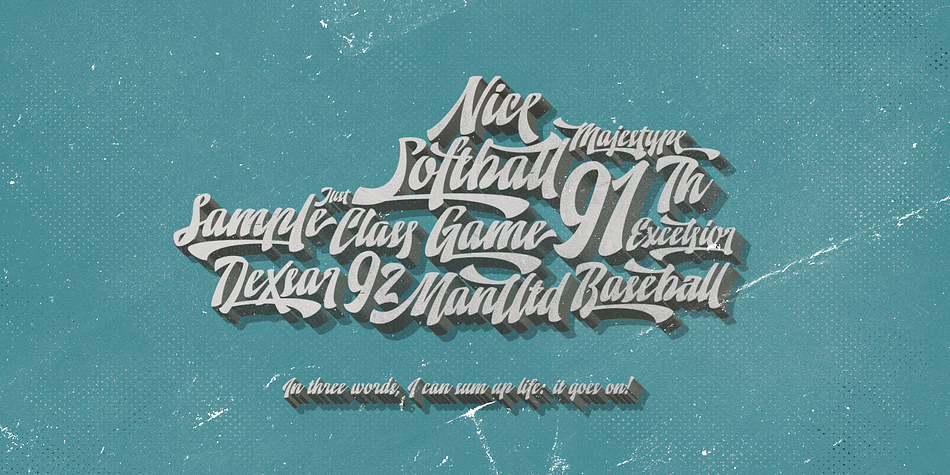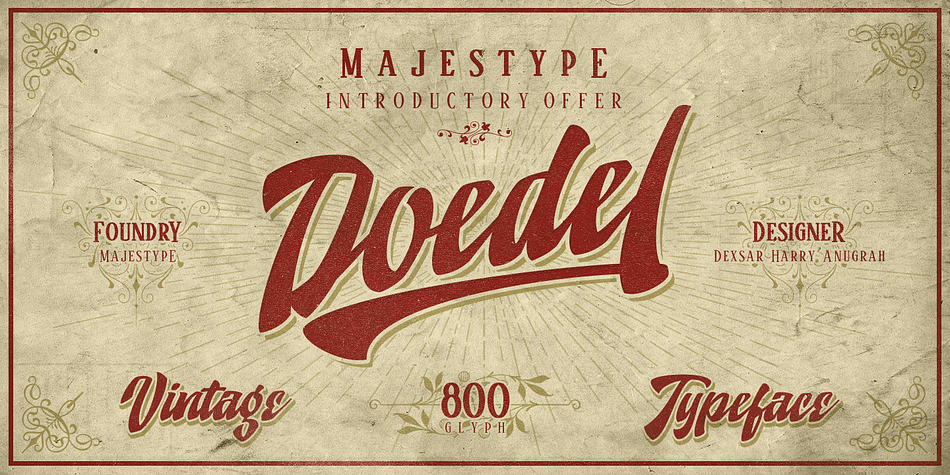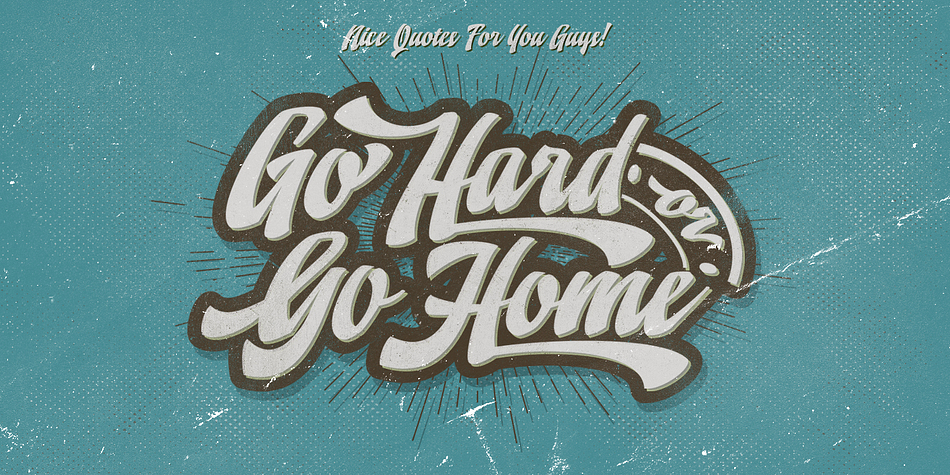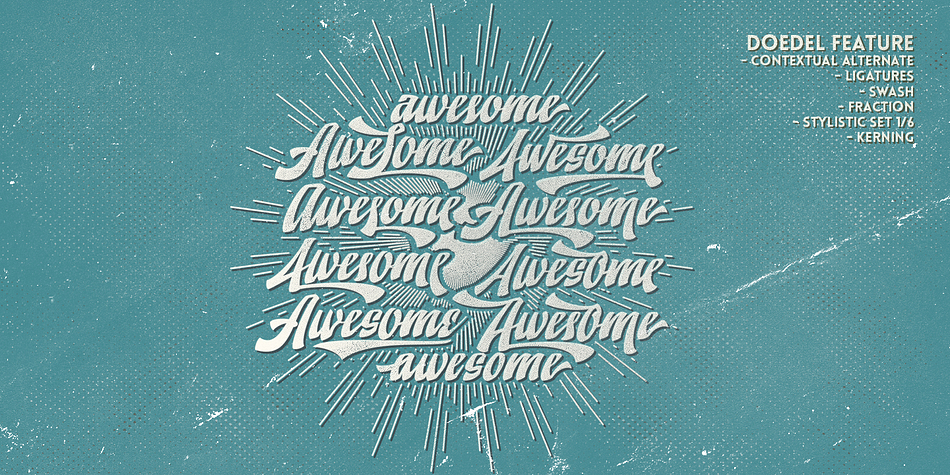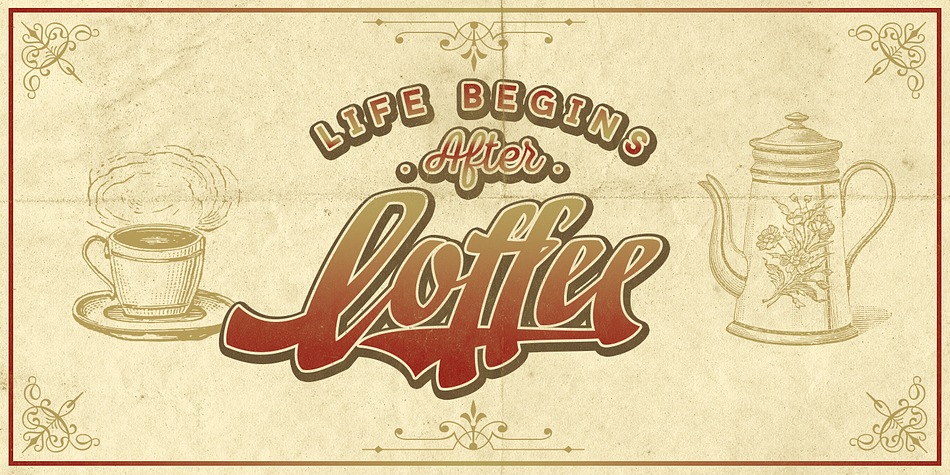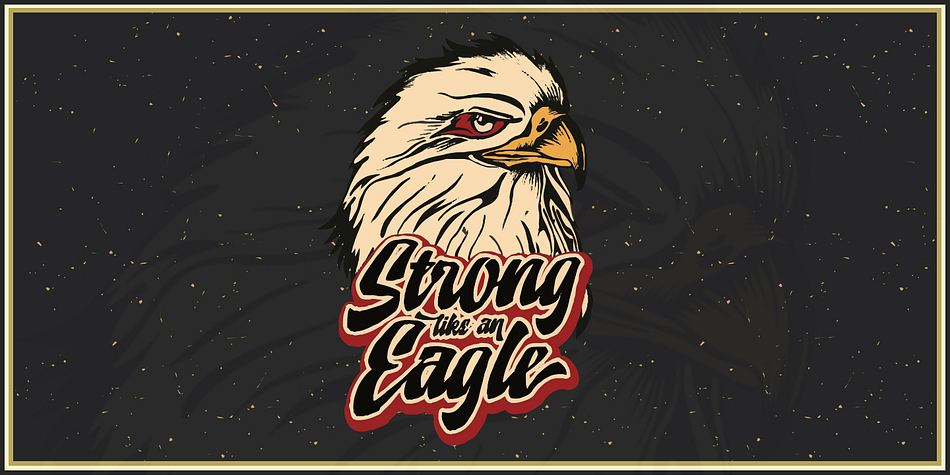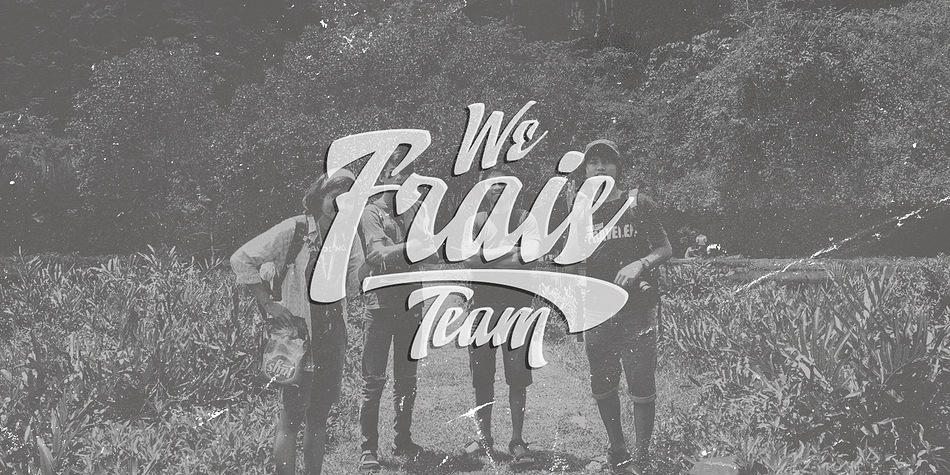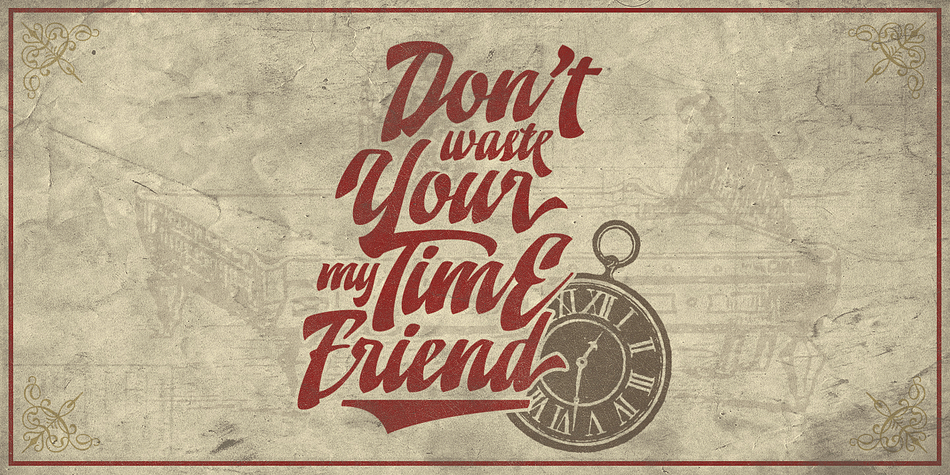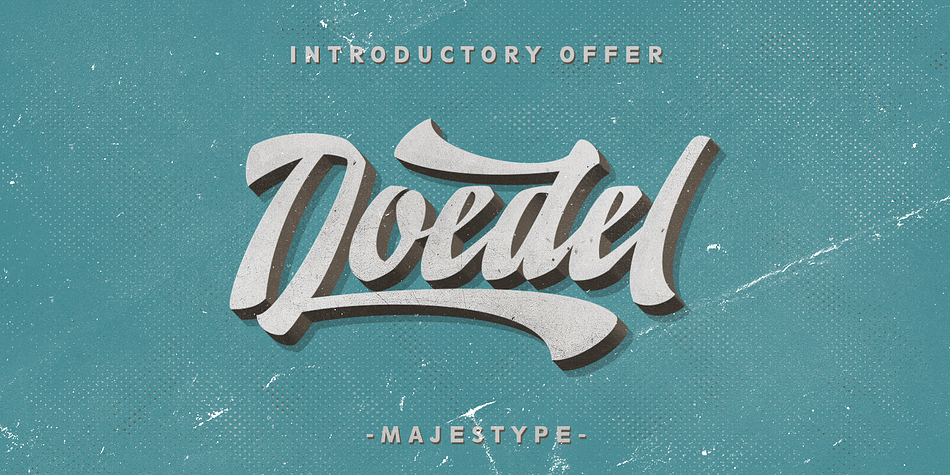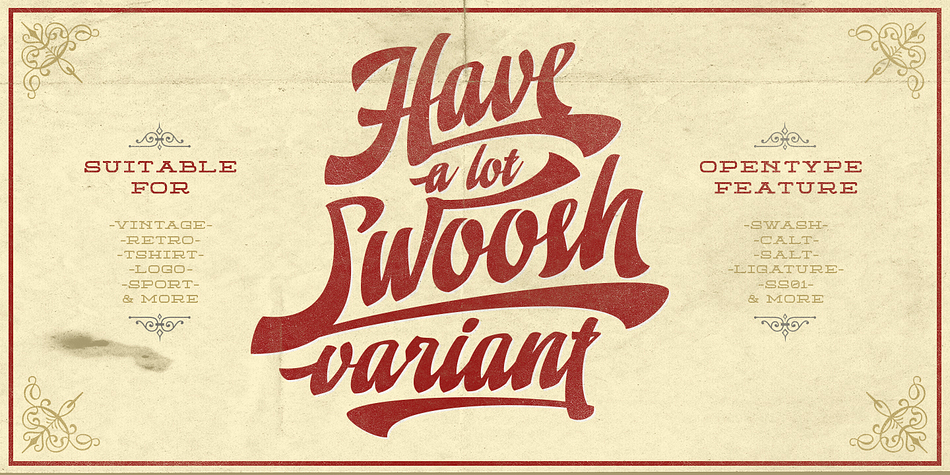
Doedel is a dingbat and brush script font family. This typeface has ten styles and was published by Majestype.
Doedel is a strong script font that comes with over 800 glyphs and is equipped with a host of OpenType features, works well at large size and making it a breeze to customize the feel of your design. An ideal font for retro design, vintage design, t-shirt design, headline, website title, package or etc.